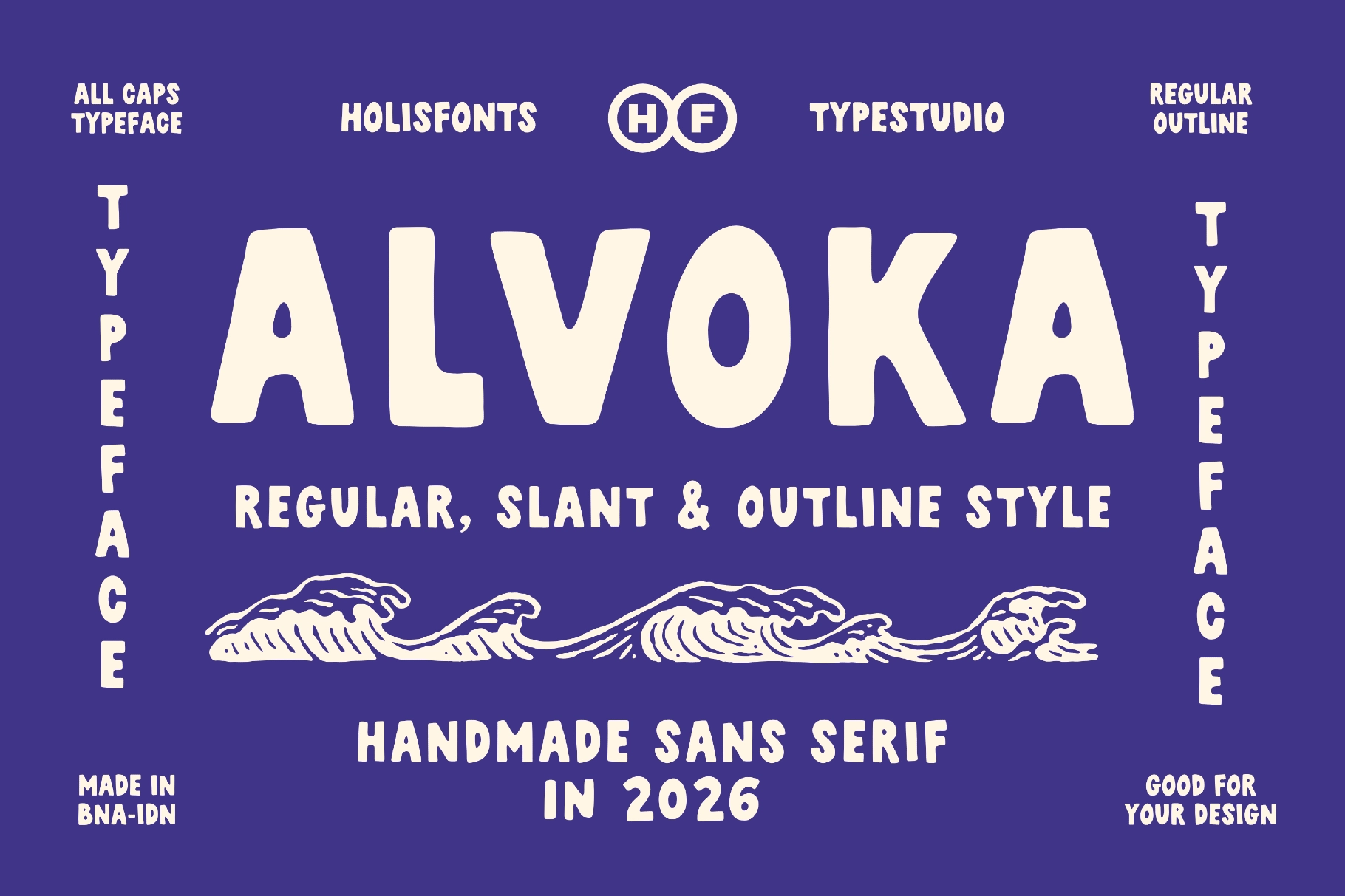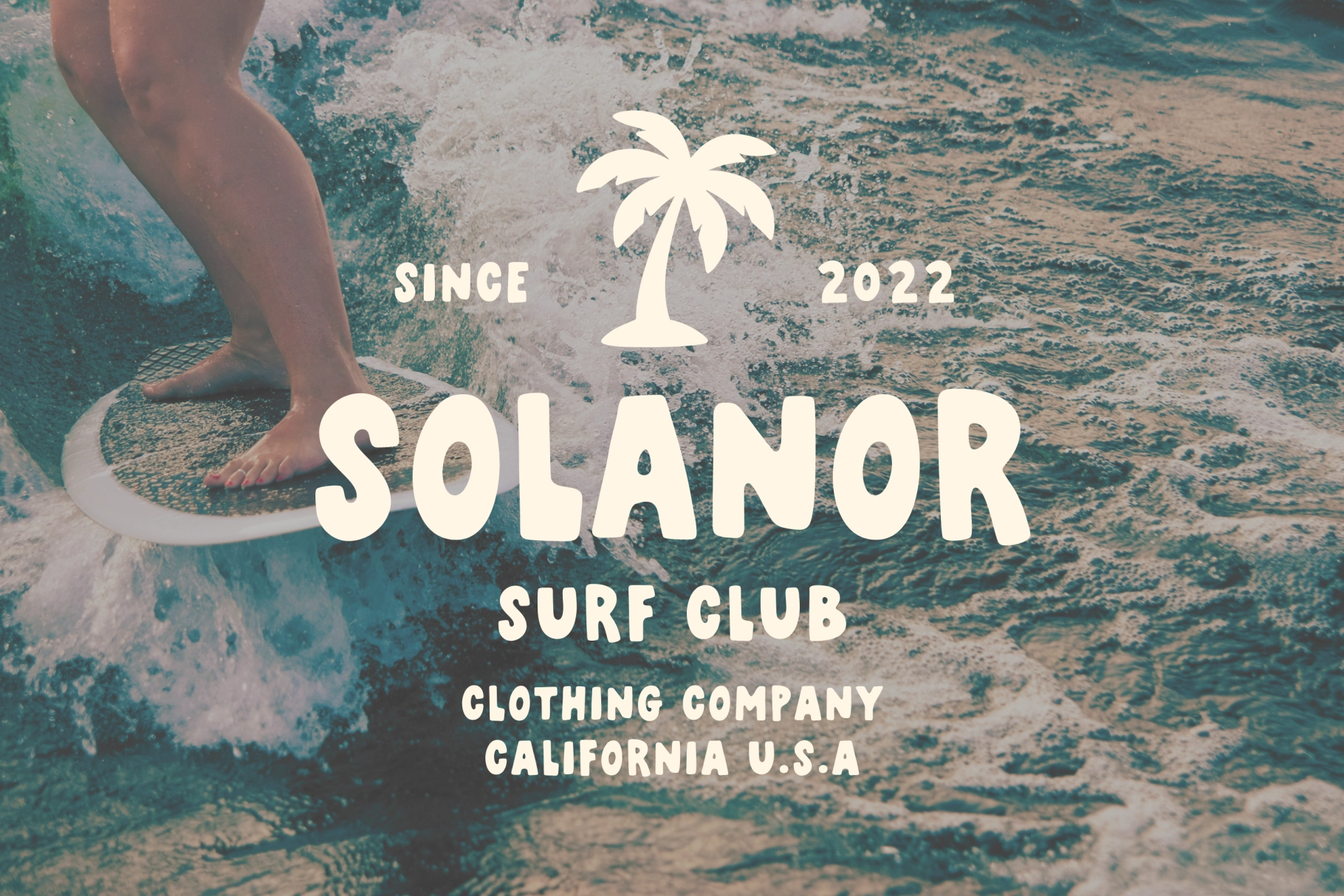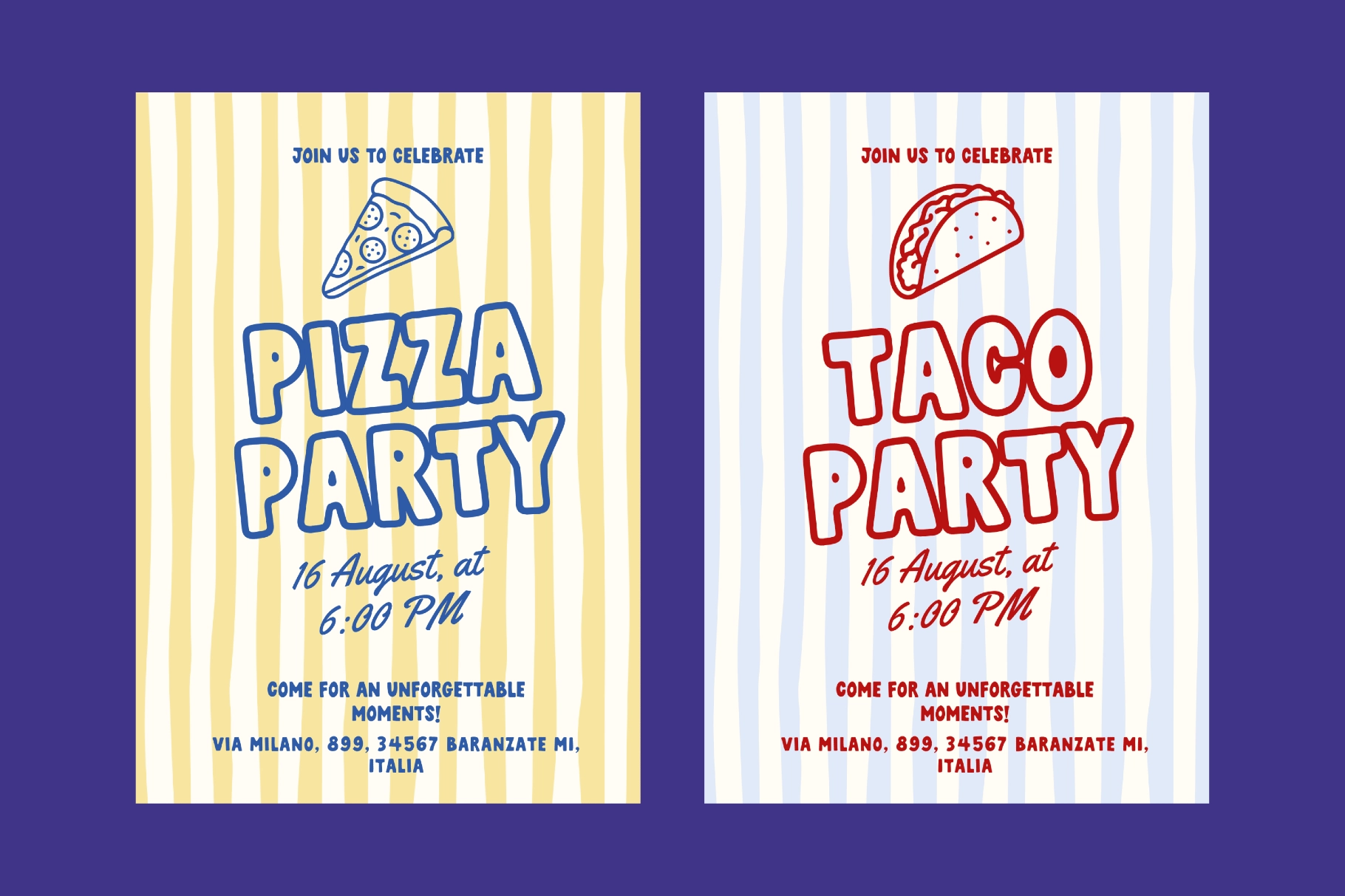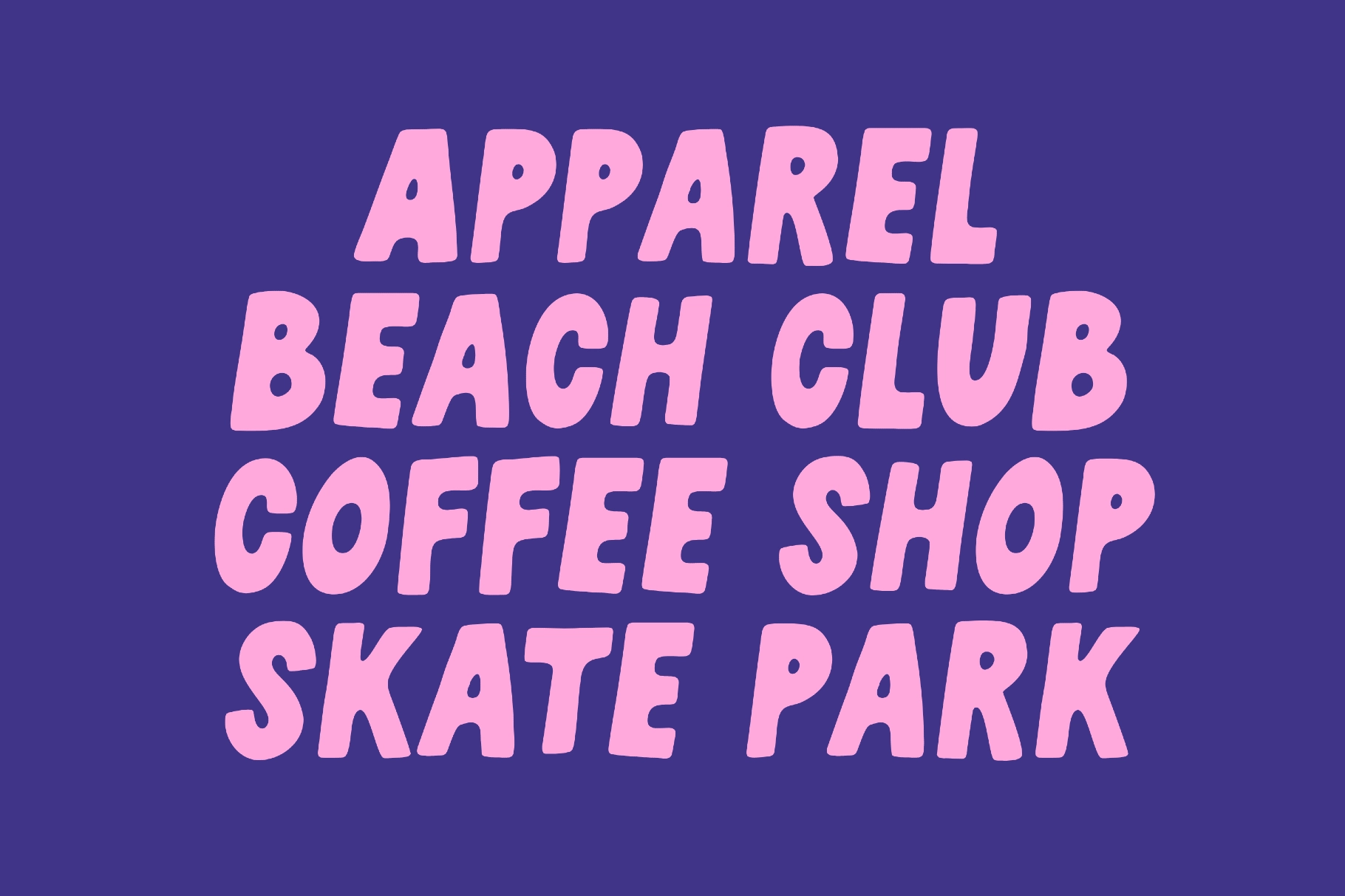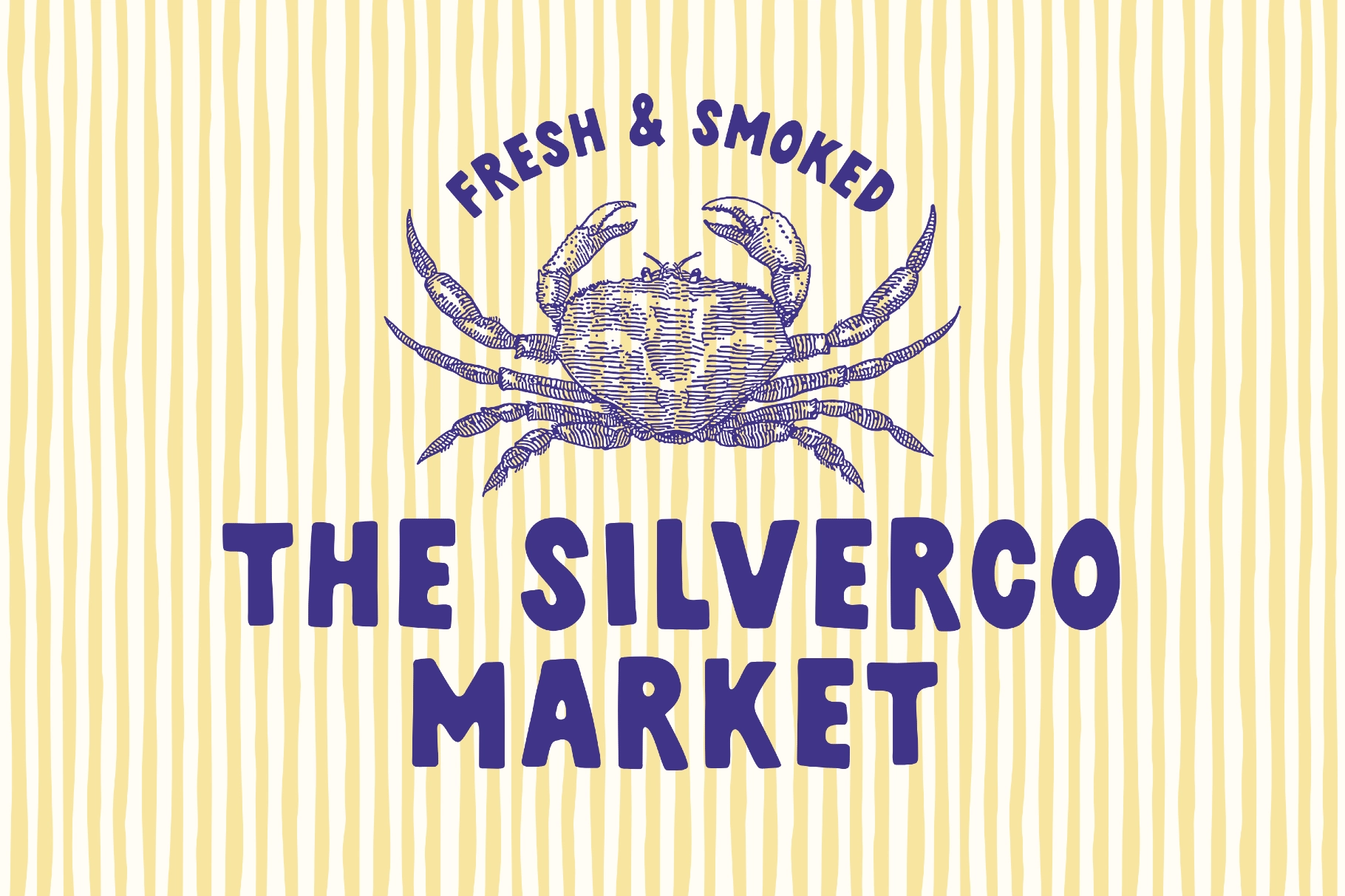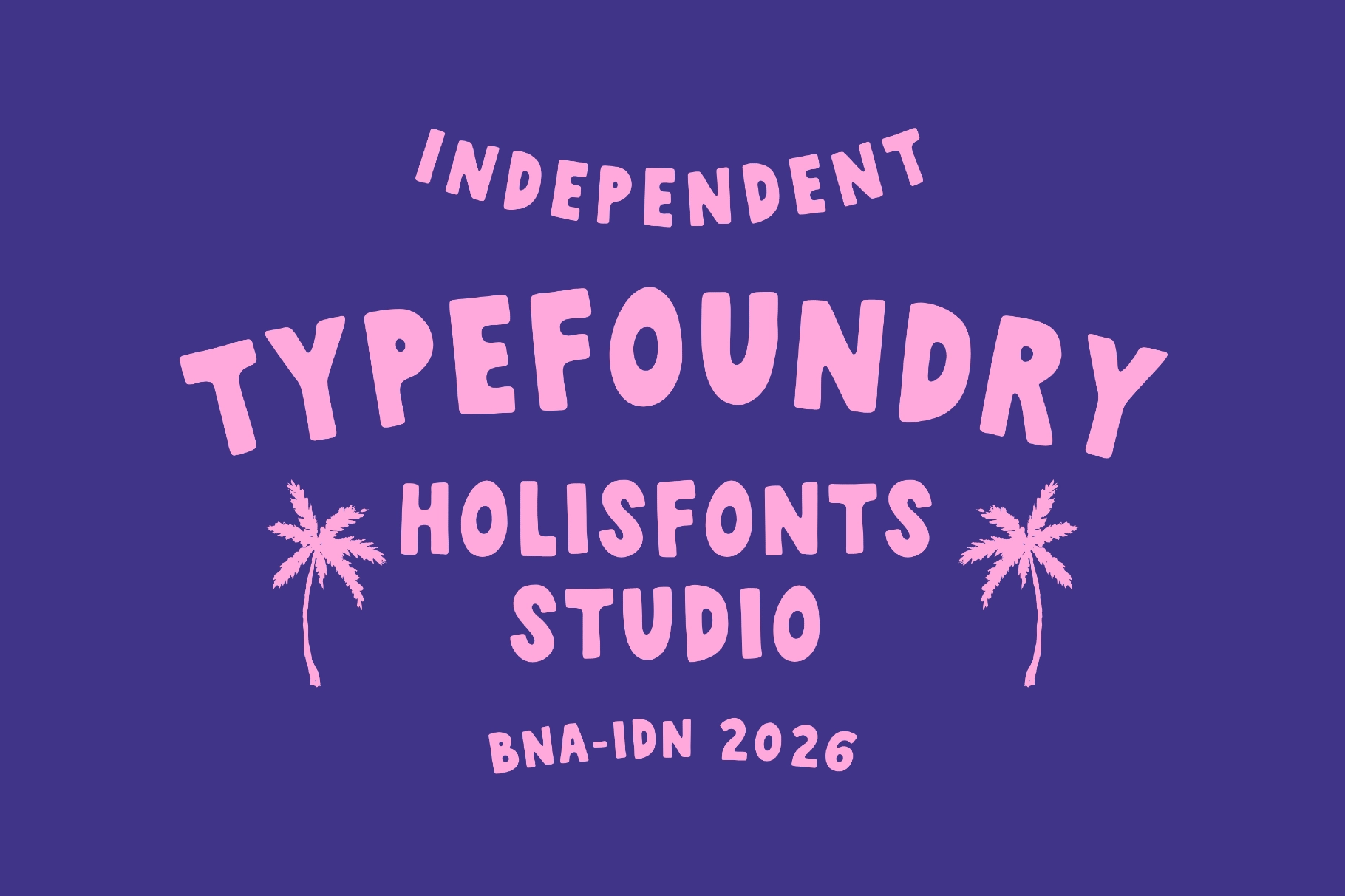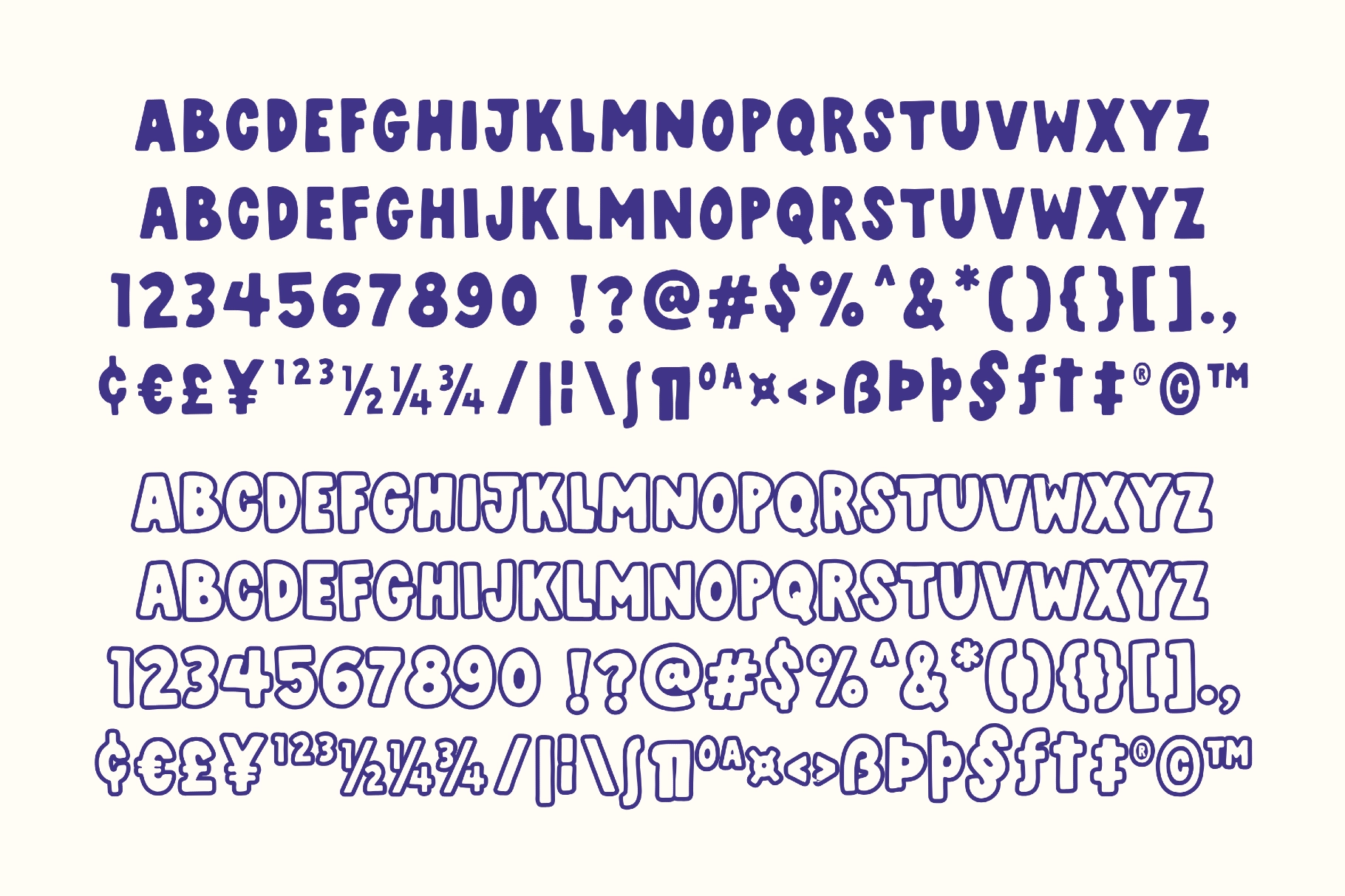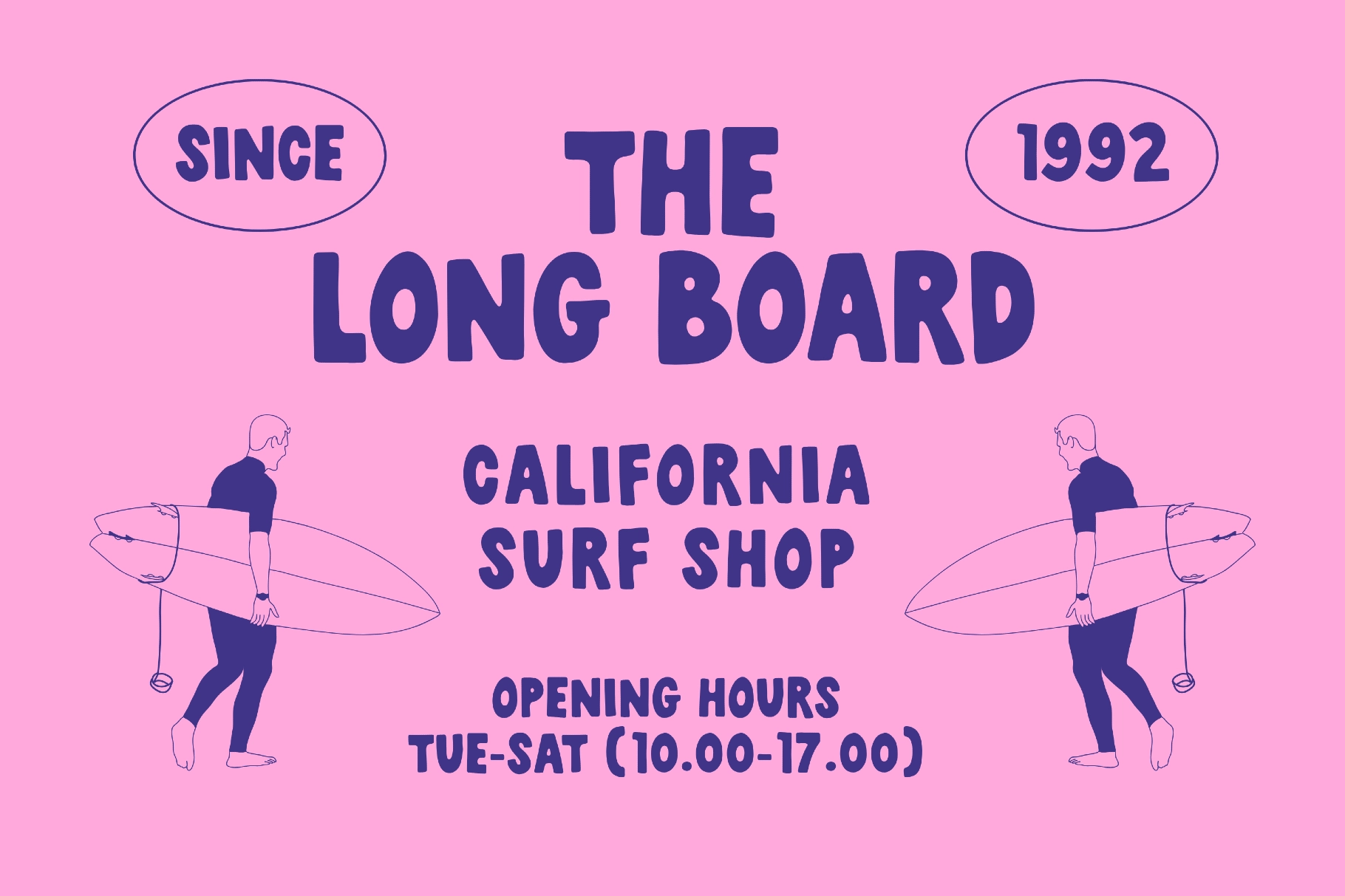
Alvoka - Retro Hand Drawn Playful Font
Alvoka
Slant
Slant Outline
Boardwalk signs painted by hand rarely sit straight, and Alvoka keeps that same lean. The caps bulge into chunky, rounded shapes with wobbly baselines and uneven strokes, landing somewhere between a hand-drawn scrawl and a boardwalk bubble font. Alvoka comes in four styles — Regular, Slant, Outline, and Slant Outline — so headlines can stack solid or hollow, straight or tilted, depending on how loud the layout needs to go.
Use it for surf shop branding, skate park signage, beach club logos, coffee shop menus, seafood market packaging, summer festival posters, party invitations, merch prints, and beach-themed social graphics.
- uppercase only, all-caps display;
- numerals, punctuation & currency symbols;
- multilingual support.